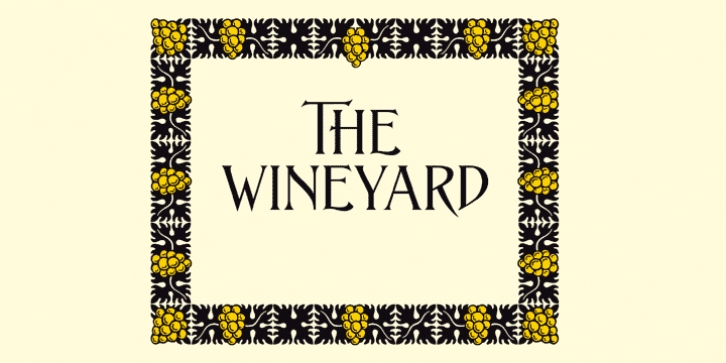
ASTYPE Ornaments Wine Grape A was designed by Andreas Seidel and published by astype. ASTYPE Ornaments Wine Grape A contains 1 style.
WineGrape uses the following OpenType features to set up to three different color layers:
- Small Caps / changing direction
- Superscript/Superior (Grapes)
- Subscript/Inferior (Leafs)